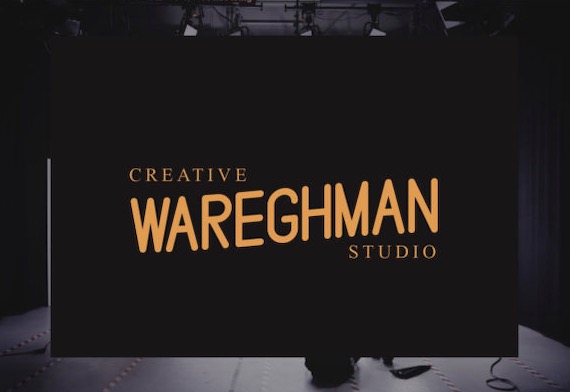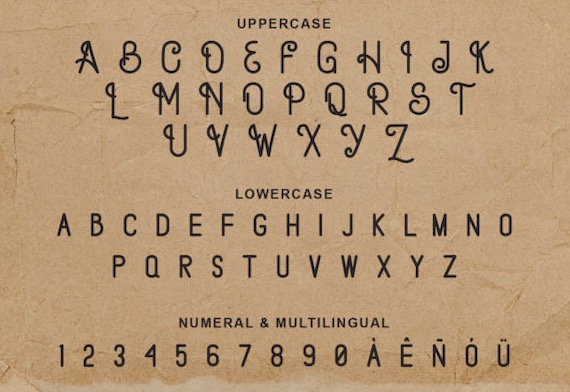
Magartha Font is a vintage and elegant looking sans serif typeface that was created and shared by Galatamen. Magartha Font can easily be matched to an incredibly large set of designs, so add it to your creative ideas and notice how it makes them stand out!
Magartha Sans Serif Font